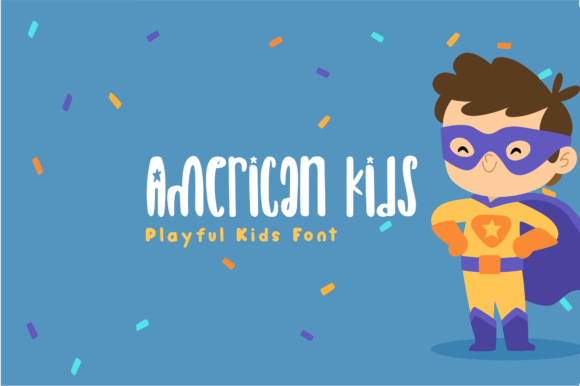
Designing with a Smile: Discovering the Joy of American Kids Font
Who hasn’t had a moment where a spark of creativity strikes, and suddenly you’re envisioning a whimsical world of colorful characters and playful typography? For designers, this moment is all too familiar, and it’s exactly what makes working with the right fonts so essential. When you stumble upon the perfect font, it can elevate your entire project and leave a lasting impression on your audience.
That’s exactly what happens when you discover the American Kids Font, a fun and modern display font designed specifically with a friendly style that’s perfect for children’s projects, magazines, apparel designs, and more. This versatile font is a valuable addition to any designer’s toolkit, offering endless possibilities for creative expression.
American Kids Font Key Features
- Font Family: American Kids
- Character Set: Latin, Latin Extended-A, Latin Extended-B, and others
- Unique Characteristics: Hand-drawn, playful, and informal design with a nostalgic feel, suitable for children’s books, educational materials, and other applications where a friendly and approachable tone is desired
Design Review: American Kids Font
At first glance, American Kids Font is an eye-catching and fun font that could work well for various projects, particularly those targeting a younger audience ✨. The font’s playful and casual vibe is reminiscent of classic American diner signage, which makes it perfect for nostalgic or retro-themed designs.
The font’s versatility is also worth noting, as it can be used for both display and body text. The bold weight is particularly effective for headings, while the regular weight is suitable for body text ✨.
However, there are some limitations to consider ⚠️. The font may not be the best choice for formal or professional projects, as its casual nature may not convey the desired level of sophistication. Additionally, the font’s character set may not be as extensive as other fonts, which could limit its use in certain situations ⚠️.
Overall, American Kids Font is a great choice for designers looking to add a playful touch to their projects. While it may not be suitable for every project, its unique character and versatility make it a valuable addition to any designer’s toolkit.
- Playful and casual vibe
- Reminiscent of classic American diner signage
- Perfect for nostalgic or retro-themed designs
- Works well for display and body text
- Not suitable for formal or professional projects
- Character set may be limited
Tips for Getting the Most Out of American Kids Font
Use American Kids Font for designs that require a playful and nostalgic feel.
Pair the font with bold and bright colors to create a fun and eye-catching design.
Experiment with different font sizes and styles to add visual interest to your design.
Use American Kids Font for:
Children’s birthday invitations and party decorations.
Summer camps and youth programs promotional materials.
Playful branding and marketing campaigns.
Alternatives to American Kids Font
Playfair Display is an elegant and luxurious serif font that is perfect for adding a touch of sophistication to your designs. It is ideal for use in titles, headings, and other prominent text elements. When to use: Formal, high-end designs, weddings, luxury branding. Comparison: While American Kids Font has a playful and casual feel, Playfair Display is more refined and sophisticated.
Lato is a modern sans-serif font that is highly legible and versatile. It is suitable for use in a wide range of applications, from body text to headings. When to use: Corporate, modern, and minimalist designs. Comparison: Lato is more streamlined and modern than American Kids Font, which has a more playful and cursive feel.
Q: Does the American Kids Font support various languages?
The American Kids Font supports a wide range of languages, including English, Spanish, French, German, Italian, Portuguese, Dutch, Russian, Chinese, Japanese, and Korean. However, please note that some languages may not be fully supported, and the font’s legibility may vary depending on the language and character set used.